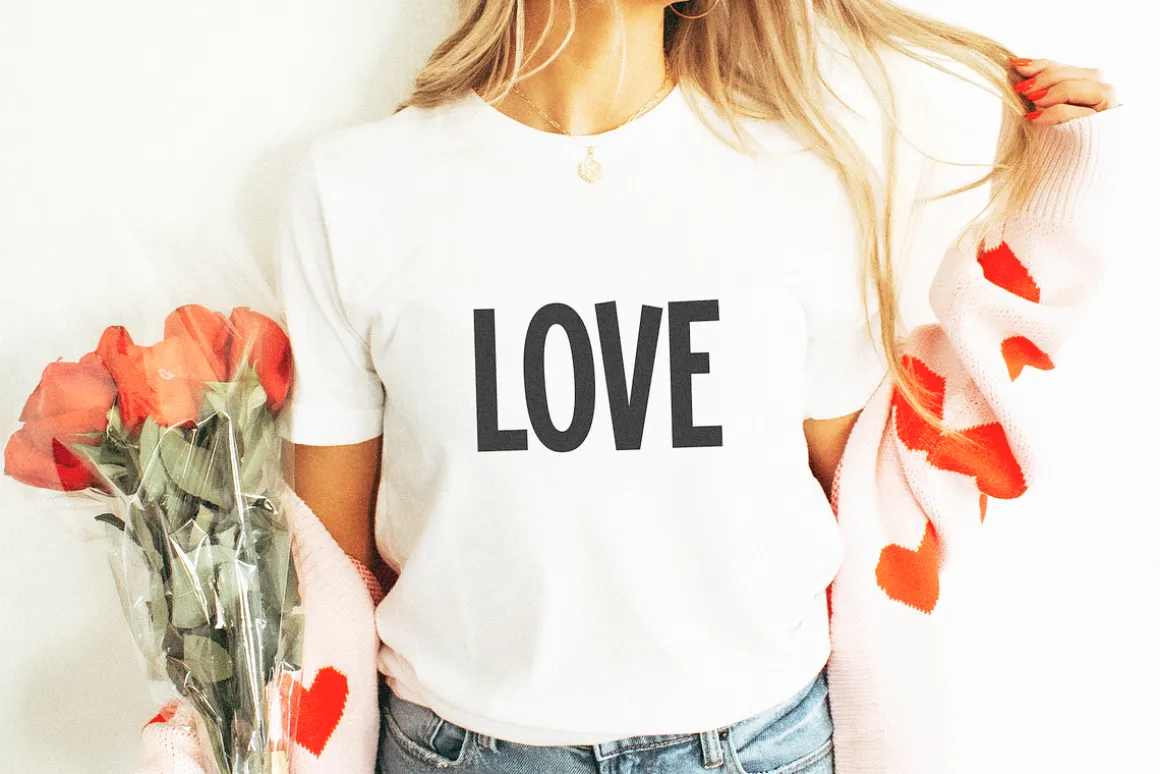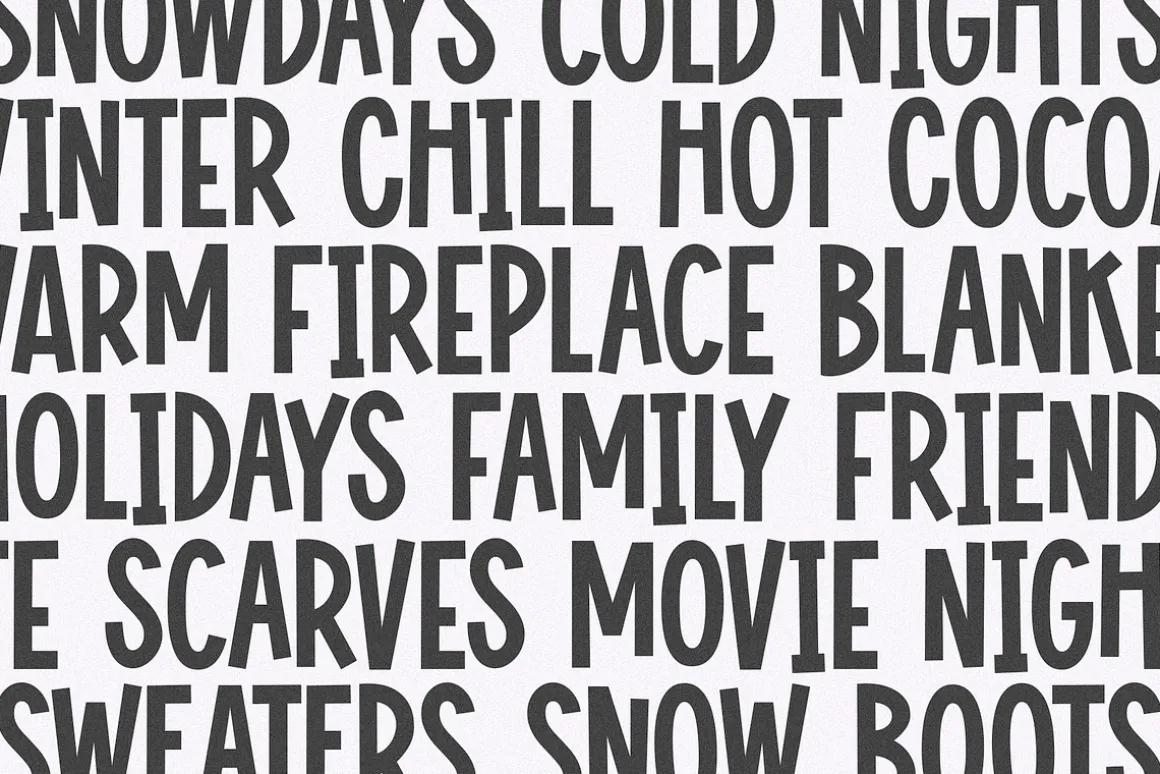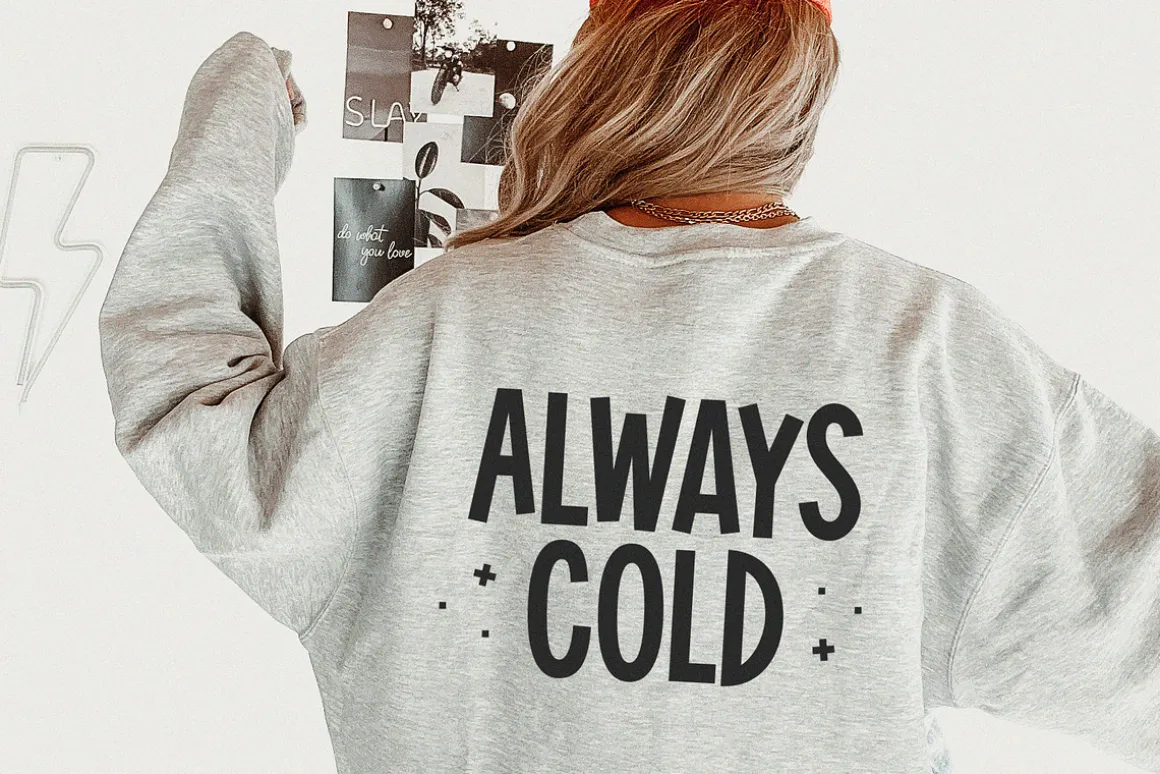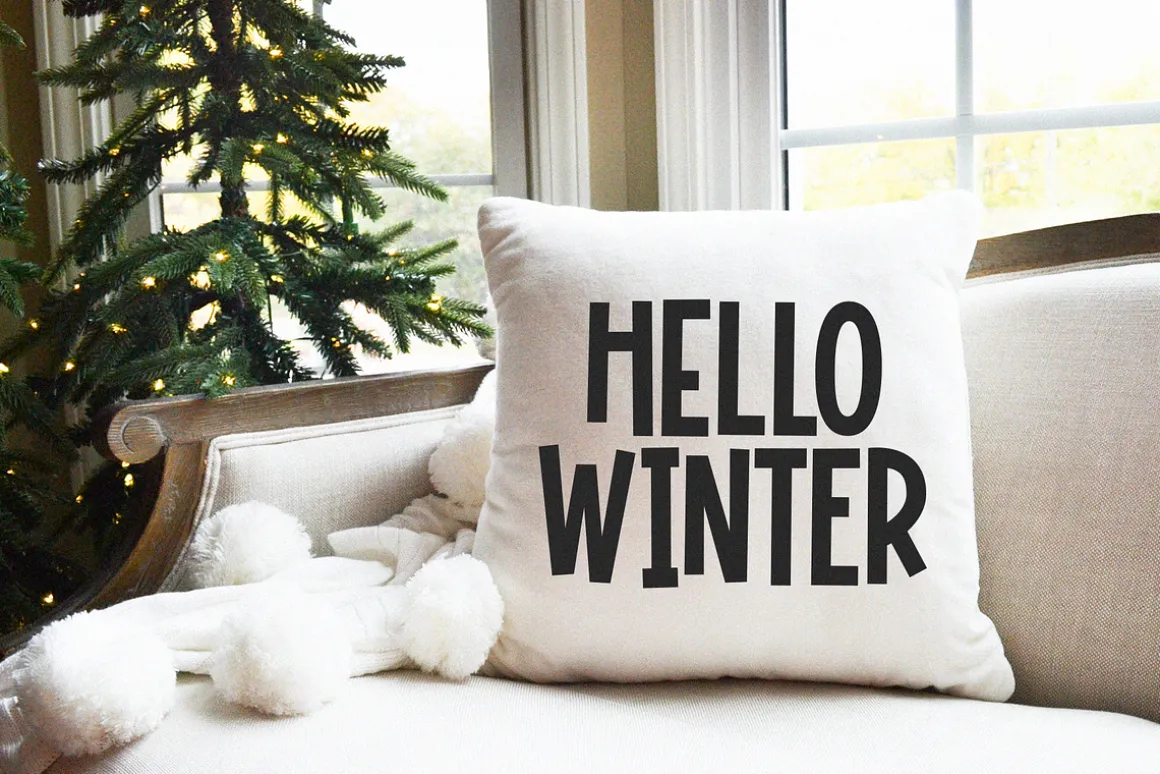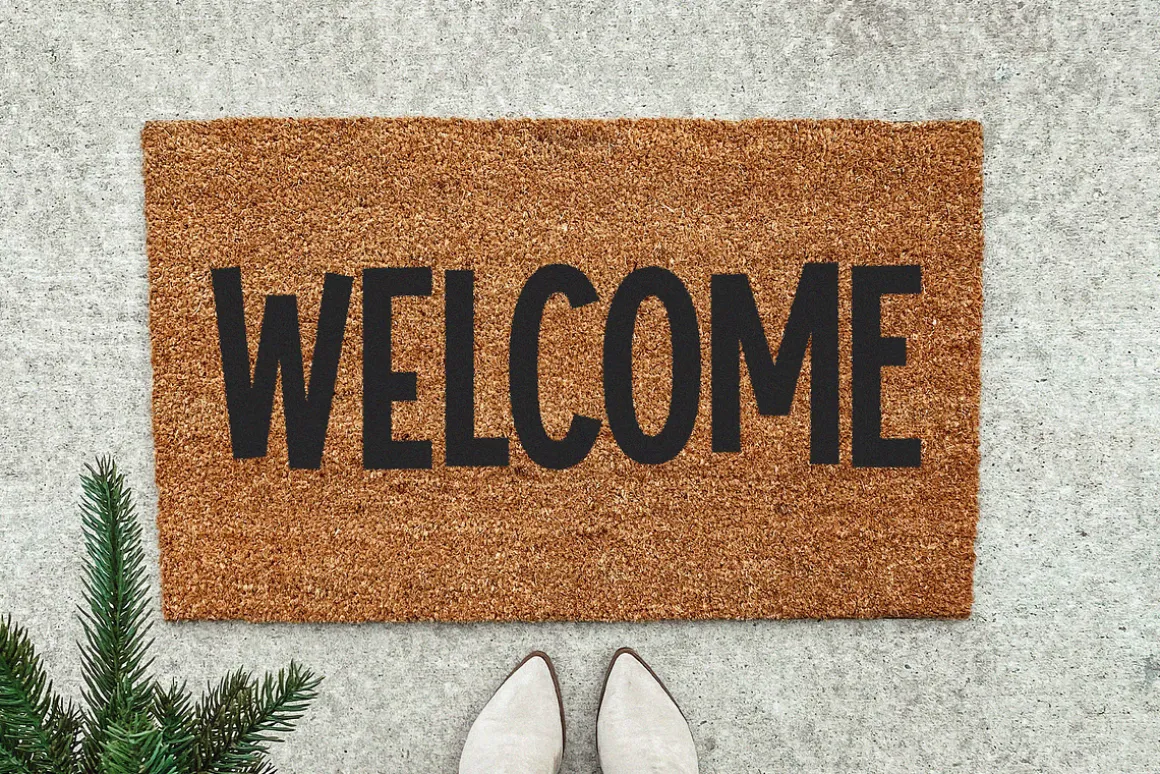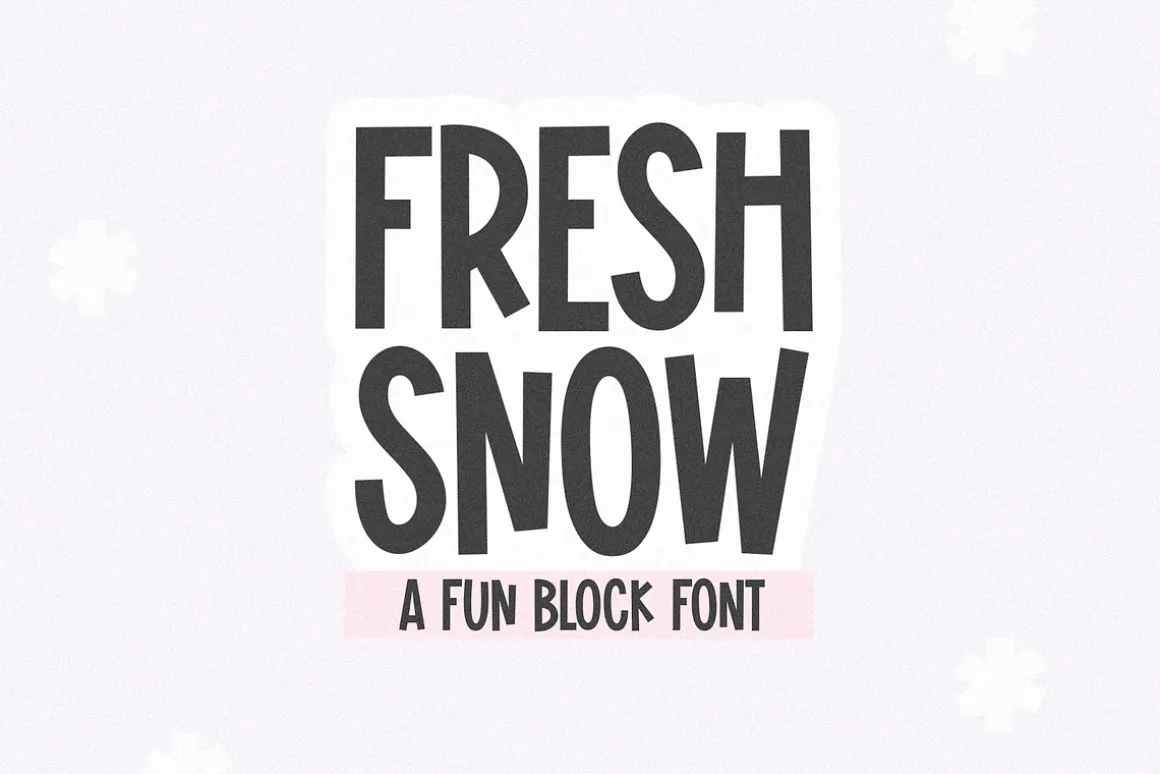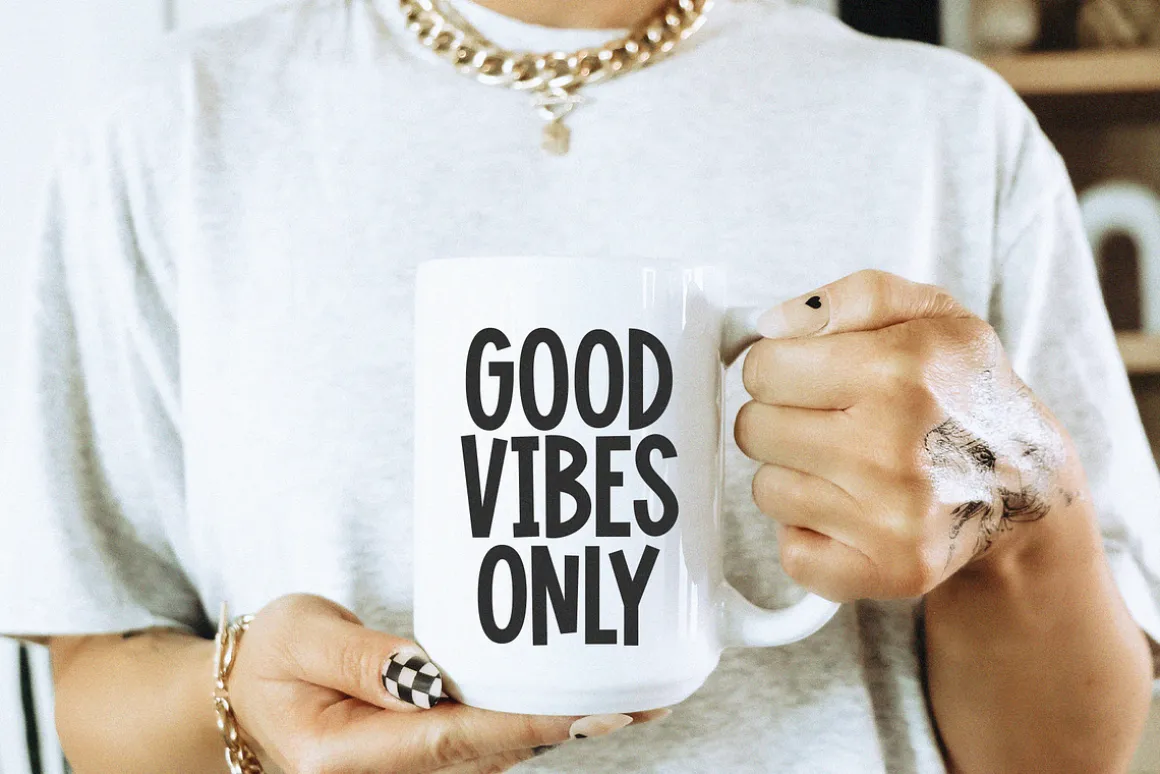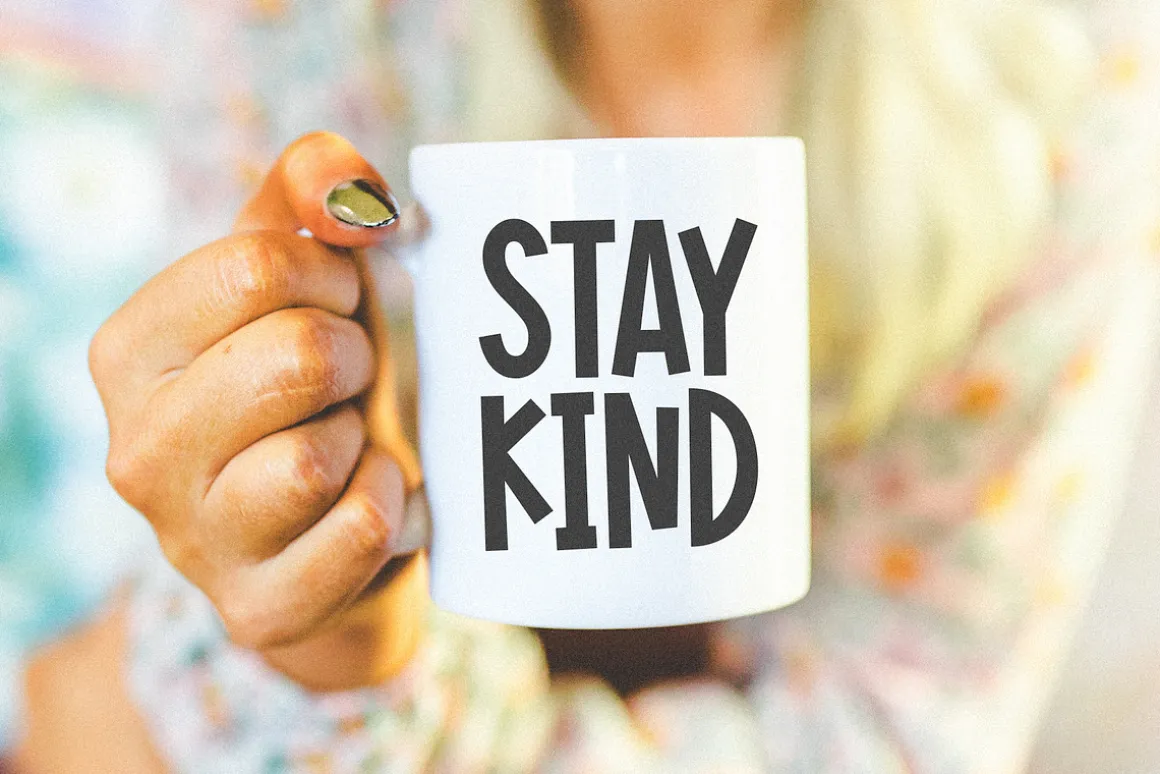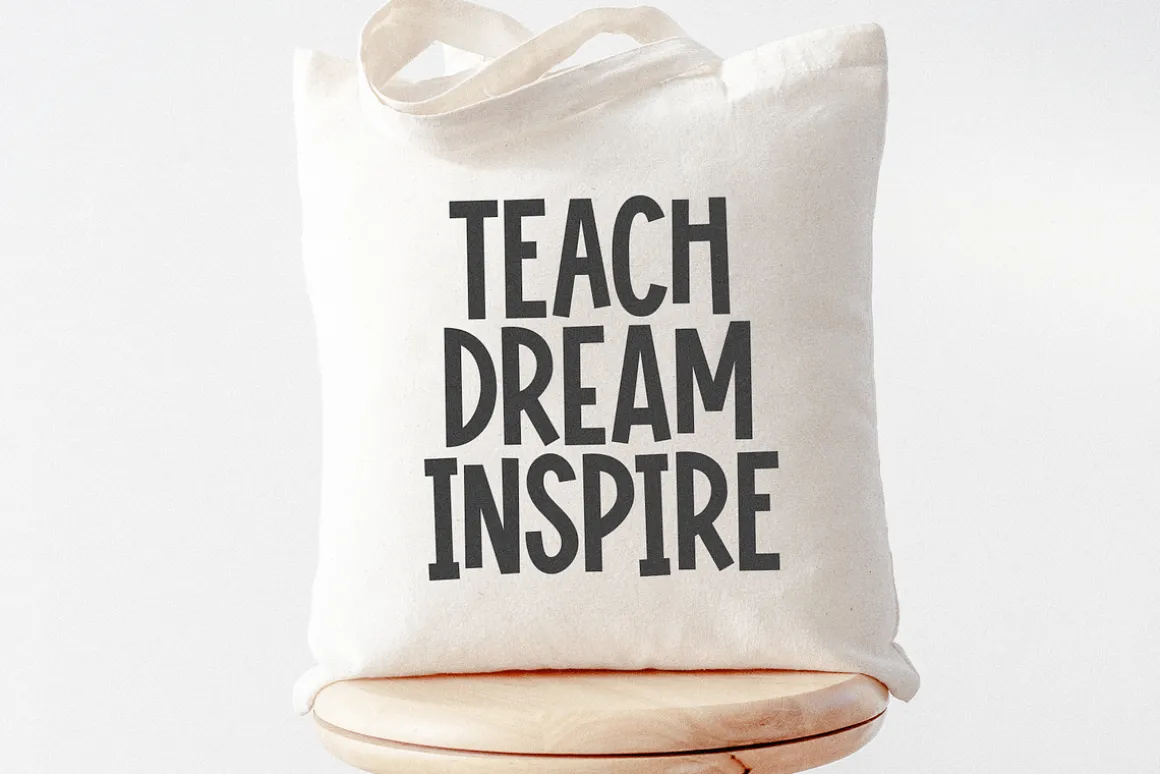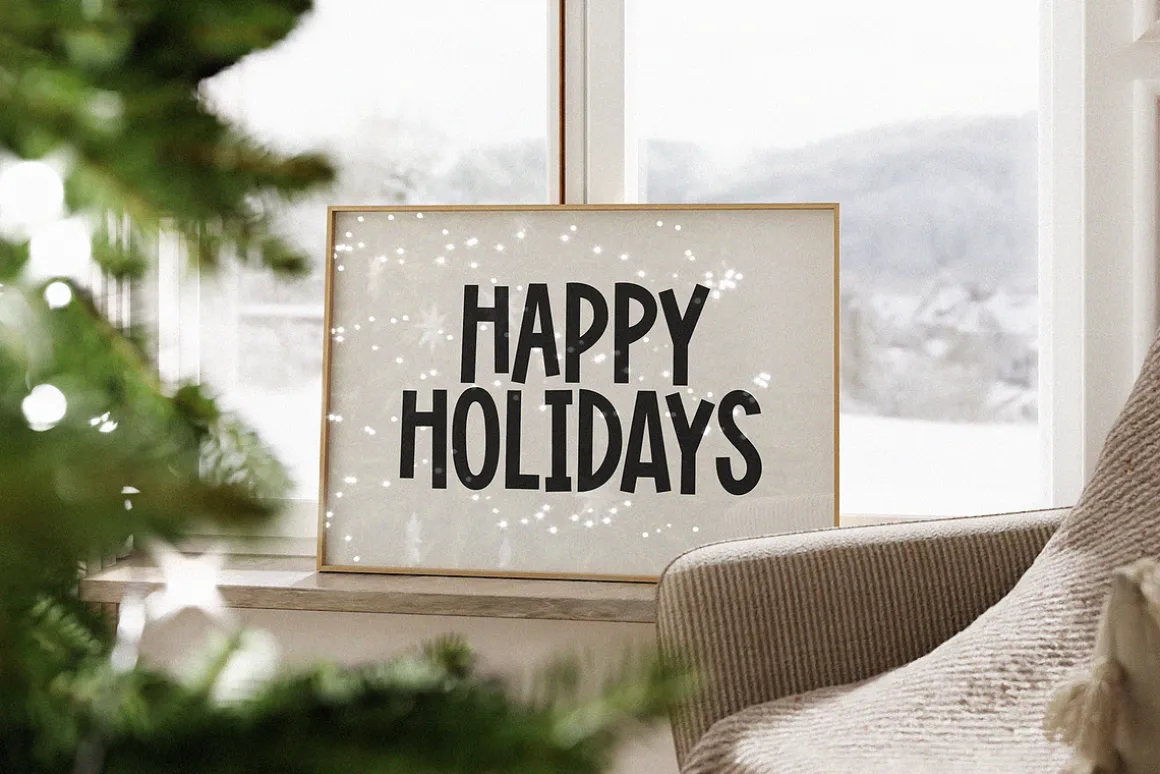
Fresh Snow is a fun block font!
This font is perfect for cricut projects, svg files, teachers, bulletin boards, procreate, logos, quotes, shirts, mugs and more!